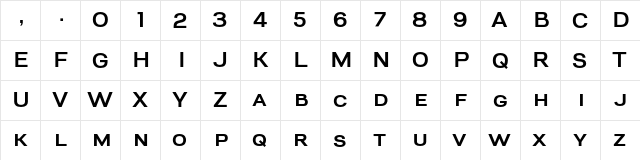
Big River Sample Regular
| Foundry | Ana Parracho |
| Designer | Ana Parracho |
Design Context for Big River Sample Typeface
Big River Sample is a composed and adaptable typeface that performs quietly and consistently across a wide range of design contexts.